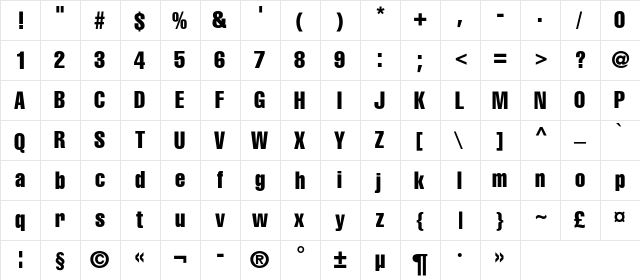
HeliosCompressedC Regular
Design Context for HeliosCompressedC Typeface
HeliosCompressedC is a composed and adaptable typeface that performs quietly and consistently across a wide range of design contexts.